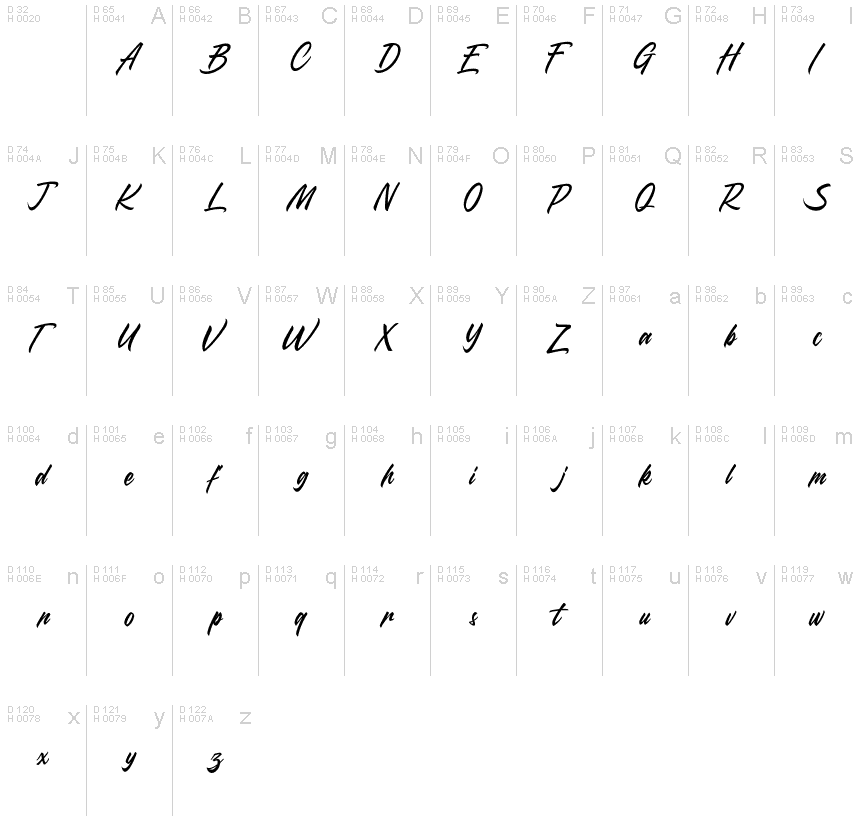
Almighty font are script fonts that are created with lettering process. It is perfect for logo design, small amount text and print materials . The font includes an uppercase, lowercase alphabet, numbers, common symbols, alternate, swash, and ligature.
Almighty Demo